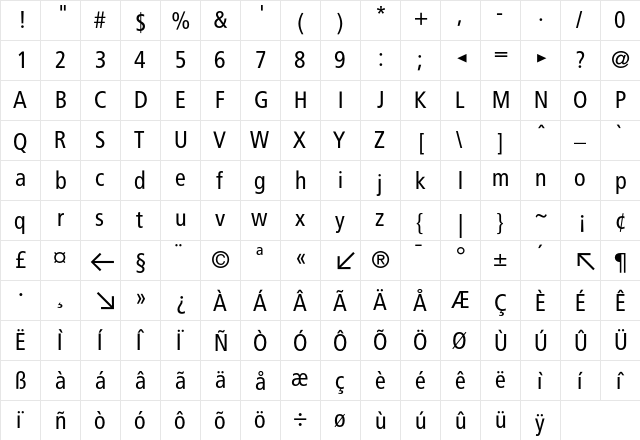
BVGNormal Regular
BVGNormal takes a measured approach to typography — its balanced proportions and neutral character make it a reliable workhorse for both digital and print work.
Pro Tip: Use BVGNormal in both headline and body roles to test its range before committing to a single application.